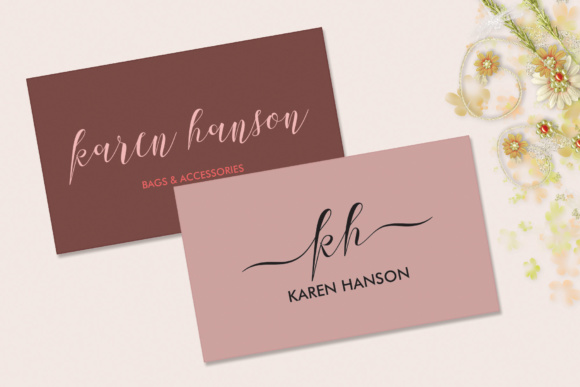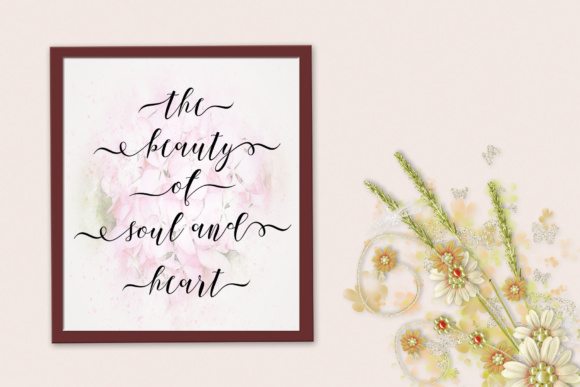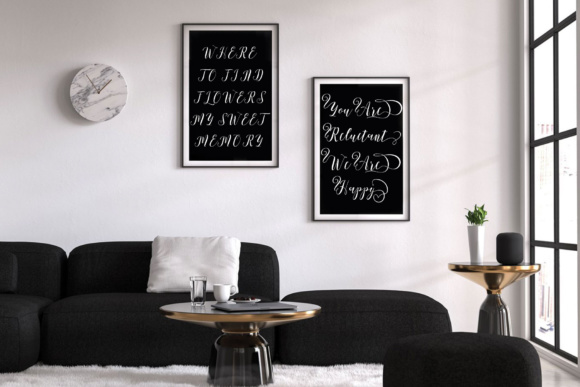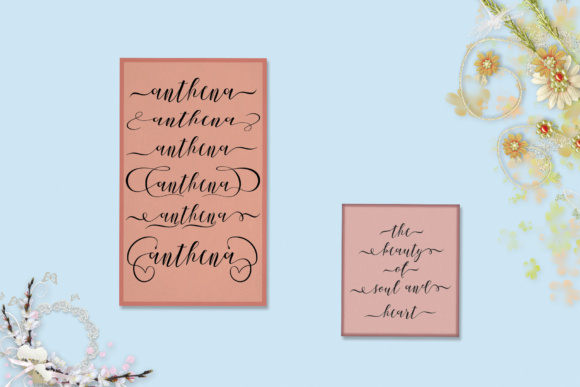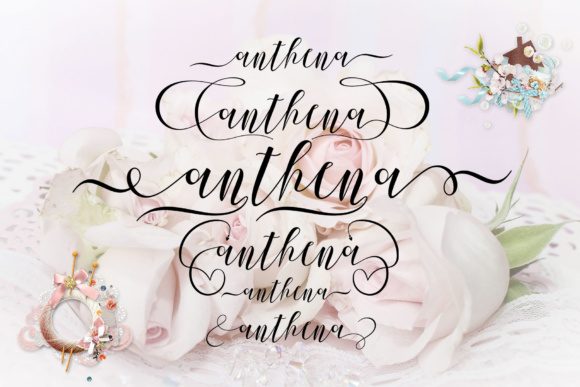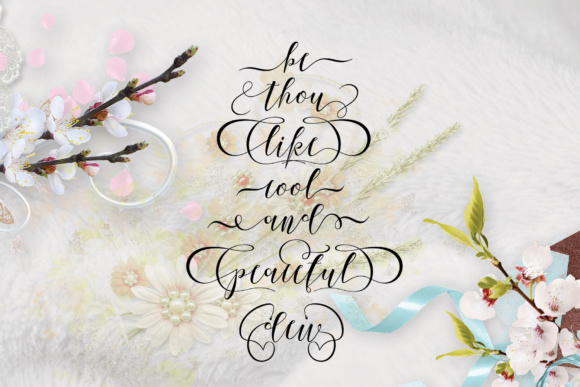
The Elegance of Anthena Script: A Designer’s Delight
I’ll never forget the time I was working on a project for a luxury brand, tasked with creating an invitation for their exclusive gala event. I had spent hours browsing through font libraries, but nothing seemed to fit the bill – that was until I stumbled upon Anthena Script. With its elegant lines and modern calligraphy style, it was love at first sight! In this article, I’ll share my experience with Anthena Script, its features, and how to make the most of this beautiful font.
A Personal Review of Anthena Script
• ✨ Elegant and refined lines that add a touch of sophistication to any design
• ✅ Highly versatile and suitable for various design projects, from newsletters to posters and greeting cards
• 💫 Beautifully crafted to take advantage of OpenType features, glyphs, and stylistic alternates
While Anthena Script is an exceptional font, there are a few things to keep in mind:
• ⚠️ Some users may find the font requires a bit of manual kerning to achieve optimal results
• 🤔 Limited availability of certain characters or glyphs, which may require additional design workarounds
The Story Behind Anthena Script
Anthena Script was crafted with the goal of creating a modern, elegant calligraphy font that would inspire designers to create stunning works of art. With its refined lines and attention to detail, Anthena Script is the perfect choice for designers seeking to add a touch of sophistication to their projects.
Q: What type of projects is Anthena Script best suited for?
A: Anthena Script is highly versatile and can be used for a wide range of projects, including newsletters, posters, badges, greeting cards, and more.